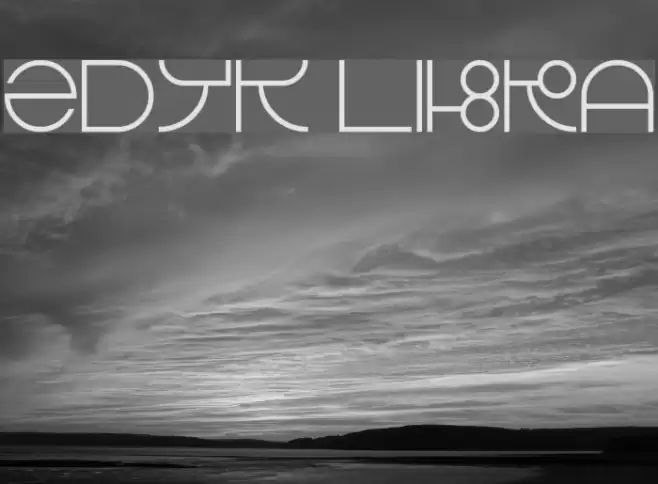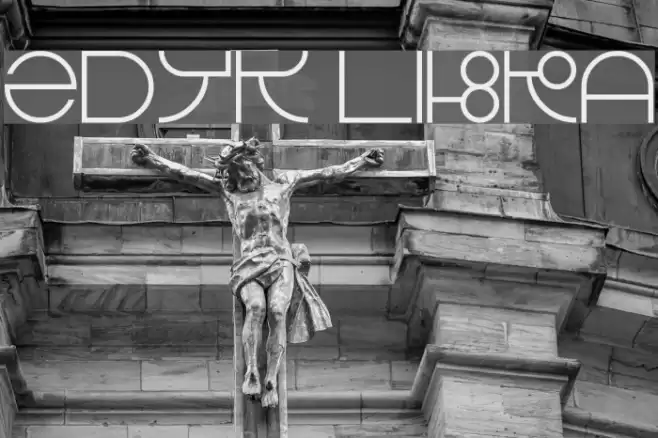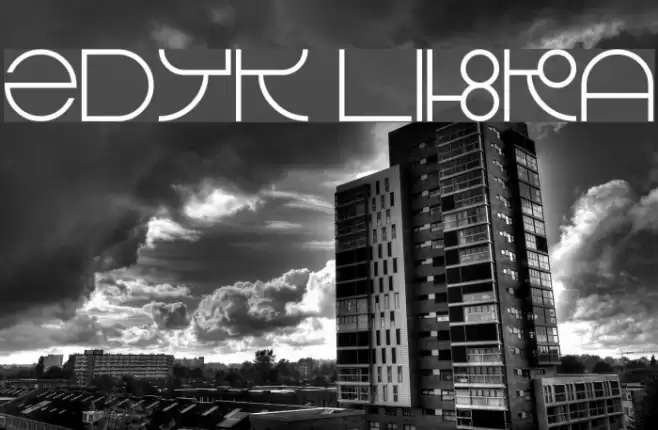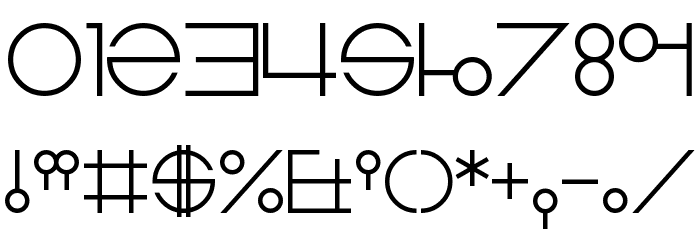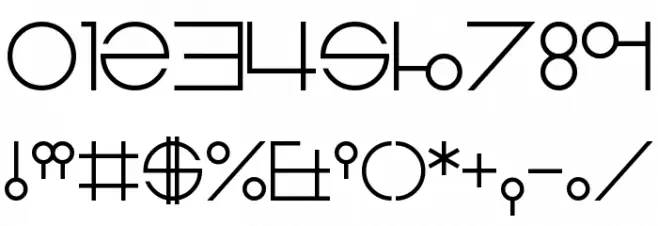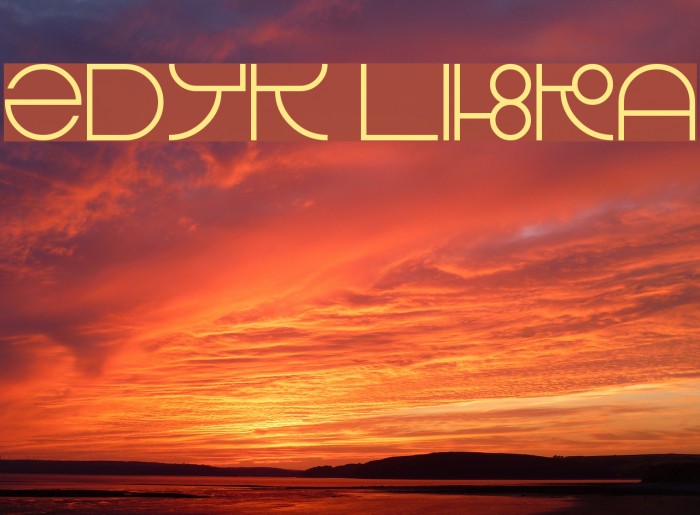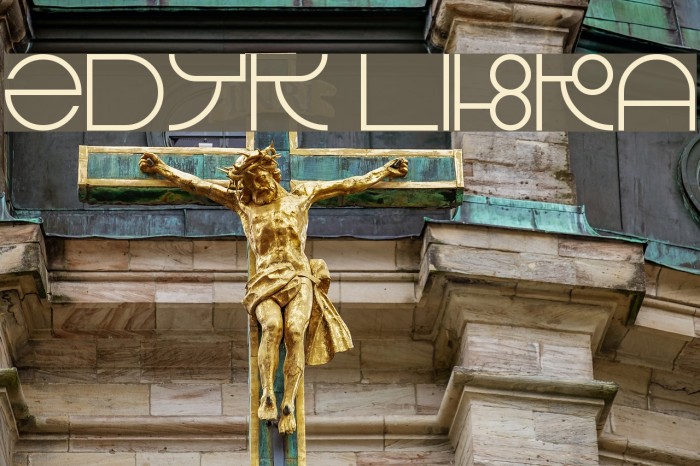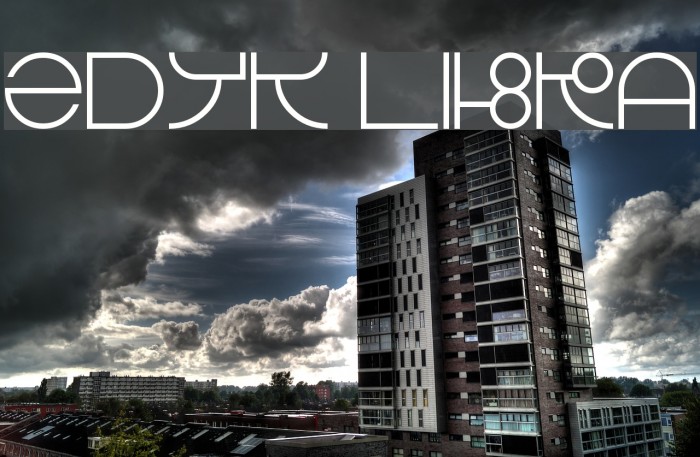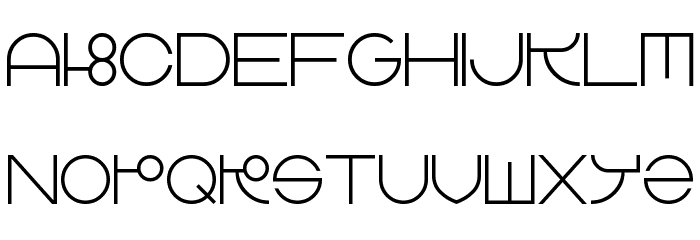
Zdyk Libra Font
Zdyk Libra Description
This font features a modern and geometric design with a unique blend of circular and linear elements. The characters are constructed with clean lines and a consistent stroke width, giving it a futuristic and minimalist appearance. The uppercase letters have a distinct style, with some incorporating circular motifs that add a decorative touch. The lowercase letters maintain a similar geometric structure, ensuring uniformity across the typeface. Numbers and special characters follow the same design principles, making the font versatile for various applications. Its overall aesthetic is sleek and contemporary, suitable for projects that require a modern and innovative look.
A modern, geometric font with circular and linear elements for a sleek, futuristic look from Uncategorized fonts.